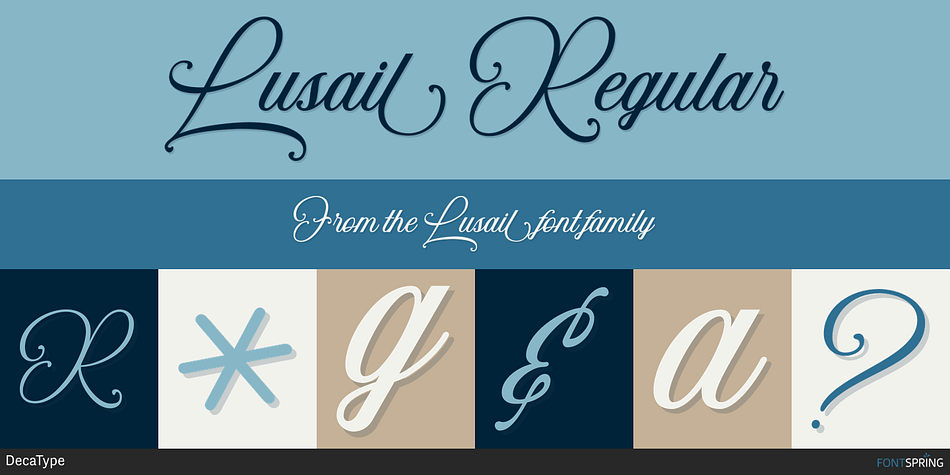
Lusail Regular
Designed by Raban Panton, Lusail is a brush script, monograms and script font family published by DecaType.
Try playing with the Lusail Font, Enjoy the rich features of OpenType and let its fun and elegant delight make you happy and boost your creativity!
This font is also decorative for elegant logos, wedding stationery, modern websites, and more! Includes a full set of upper and lower case letters with various swashes and more!